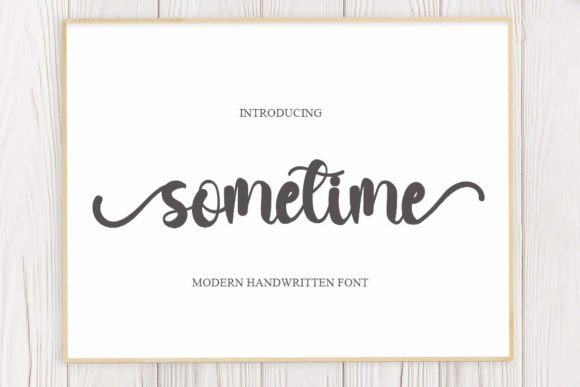
Unleash the timeless charm of Sometime Font, a captivating script font family crafted for the discerning eye. Immerse yourself in the world of elegant handwritten typography, where classic calligraphy blends seamlessly with modern aesthetics.
Sometime Font radiates with a sophisticated presence, effortlessly enhancing the beauty of your projects. Its strokes dance across the page with a perfect balance, neither too thin nor too thick. Each letter is a work of art, designed to elevate your designs and leave a lasting impression.
Step into the realm of creative possibilities with Sometime Font, the ultimate choice for business logos. Its poised and confident demeanor makes it the perfect ambassador for your brand, conveying professionalism and sophistication with every letter. Watch as your logo captivates audiences, leaving an indelible mark in the competitive business landscape.
Sometime Font is not just a font; it's an investment in your creative journey. Its versatility extends beyond business logos, making it an ideal companion for a myriad of projects. Whether you're crafting stunning invitations, designing heartfelt greeting cards, or creating eye-catching social media posts, Sometime Font will be your trusted partner, transforming your words into visual masterpieces.
With Sometime Font, the possibilities are endless. Unleash your creativity and let your designs shine with a touch of elegance and timeless charm. Join the ranks of creative professionals who have discovered the power of this remarkable font. Embrace the beauty of Sometime Font today and embark on a creative adventure that will leave you breathless.